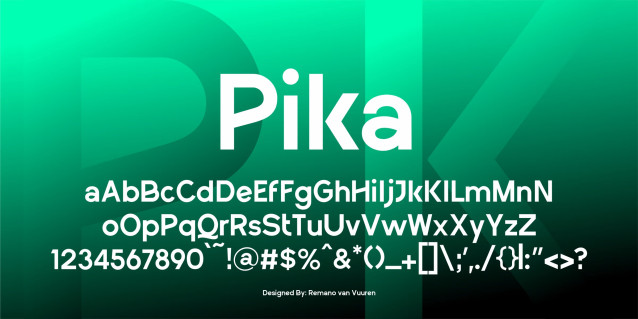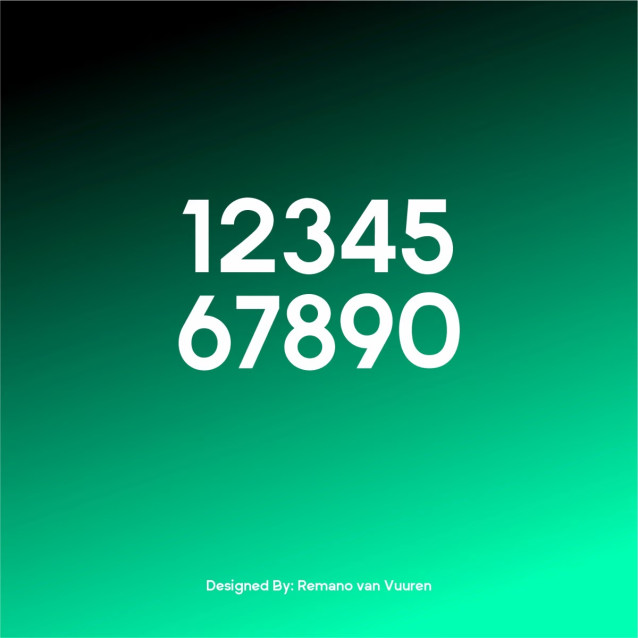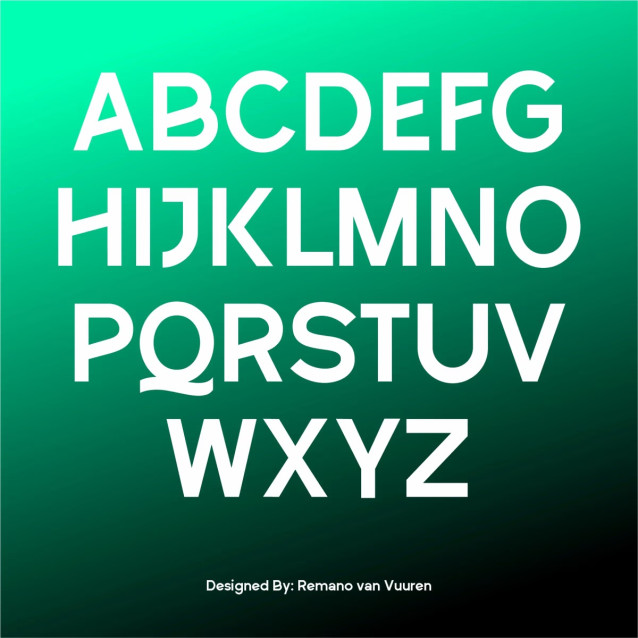
Pika Font
Pika is a modern geometric sans-serif with a clean, approachable, and contemporary aesthetic. It combines the precision of geometric typefaces with slightly softened curves, giving it a friendly rather than overly technical appearance.